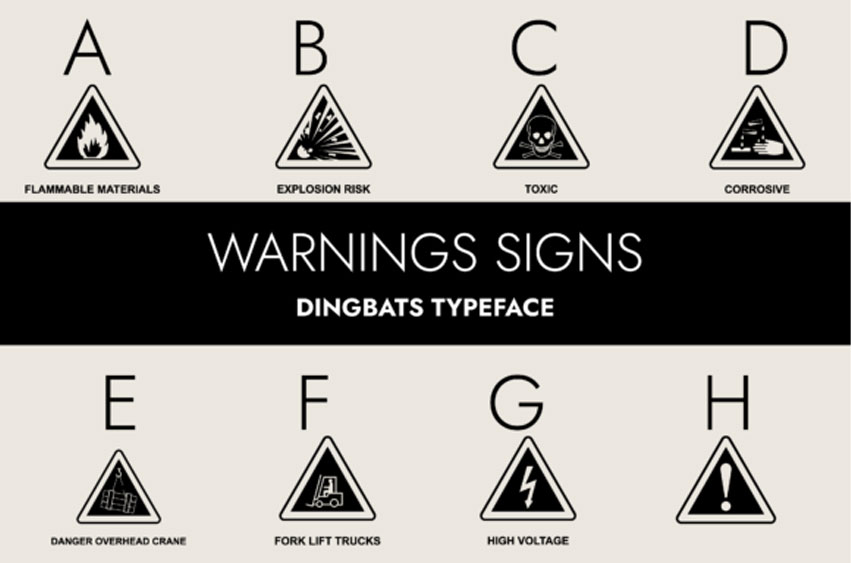
Warning Signs Font is a cool and useful dingbats font.
No matter the topic, this font will be an incredible asset to your font library, as it has the potential to elevate any creation.